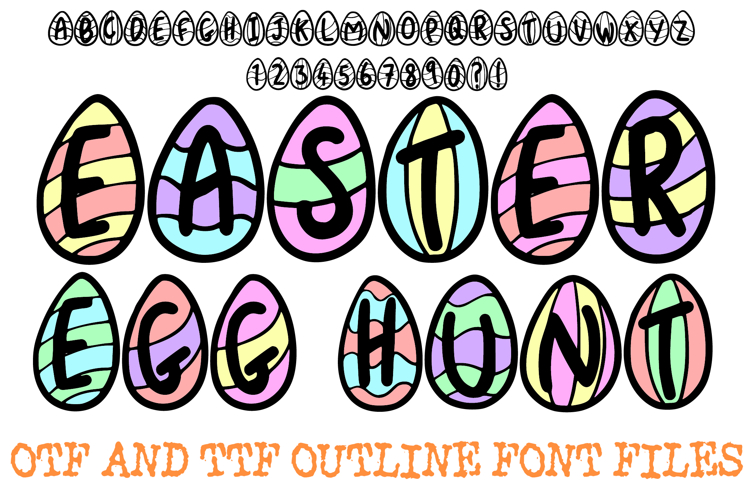
Hop into your next creative project with the Easter Egg Hunt Font! This charming display font features uppercase letters and numbers tucked inside hand-drawn Easter eggs, each decorated with whimsical wavy lines and patterns. It is the ultimate choice for adding a festive, "egg-cellent" touch to your spring designs.
The organic, doodled outlines give this font a warm and approachable feel, making it ideal for family-friendly projects. Because each character is enclosed in an egg shape, the font doubles as a set of digital stamps or clip-art, perfect for creating "Easter Egg Hunt" clues or holiday-themed worksheets.
Why You’ll Love the Easter Egg Hunt Font:
Unique Festive Design: Every letter (A-Z) and number (0-9) is integrated into a decorative egg shape.
Hand-Drawn Charm: Features a wobbling, doodled outline for an authentic, "crafted" aesthetic.
Easy to Color: The bold, clear outlines make it easy for kids (and adults!) to color in the eggs and letters